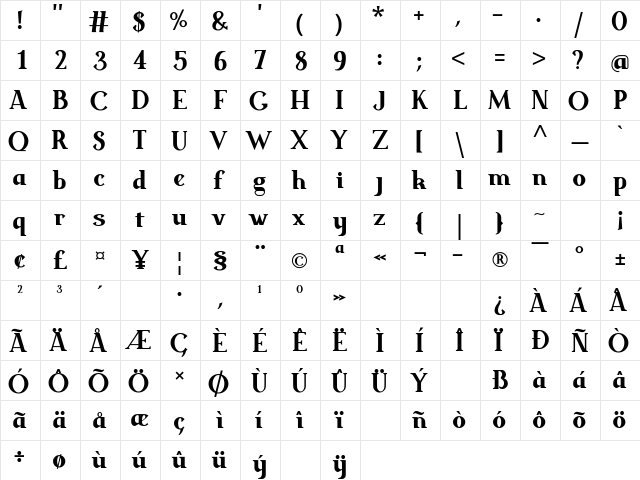
Meridies Antiqua Normal
Design Context for Meridies Antiqua Typeface
Meridies Antiqua takes a measured approach to typography — its balanced proportions and neutral character make it a reliable workhorse for both digital and print work.